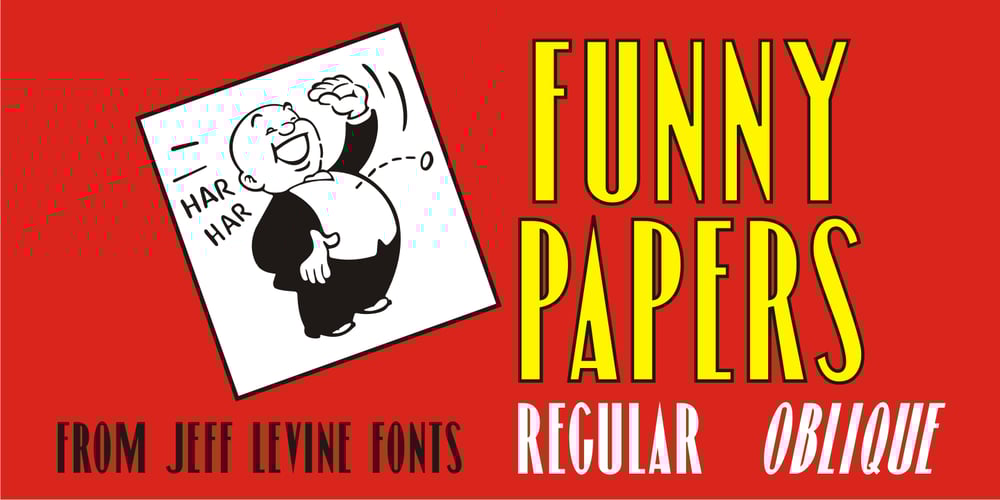
Funny Papers JNL Font Family was designed by Jeff Levine and published by Jeff Levine. Funny Papers JNL contains 2 styles and family package options. Sheet music for the 1910 composition “Good-By Betty Brown” has its title hand lettered in a thick and thin, condensed sans serif design reminiscent of lettering found in later comic strips and books of the 1930s and 1940s. Transcending both the Art Nouveau and Art Deco styles, Funny Papers JNL gets its name from the slang reference Americans of the early 20th Century gave the Sunday comics pages in their local newspapers, and is available in both regular and oblique versions.